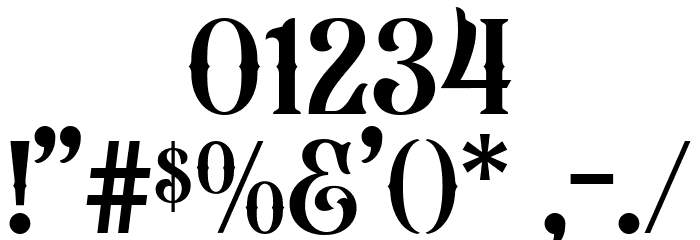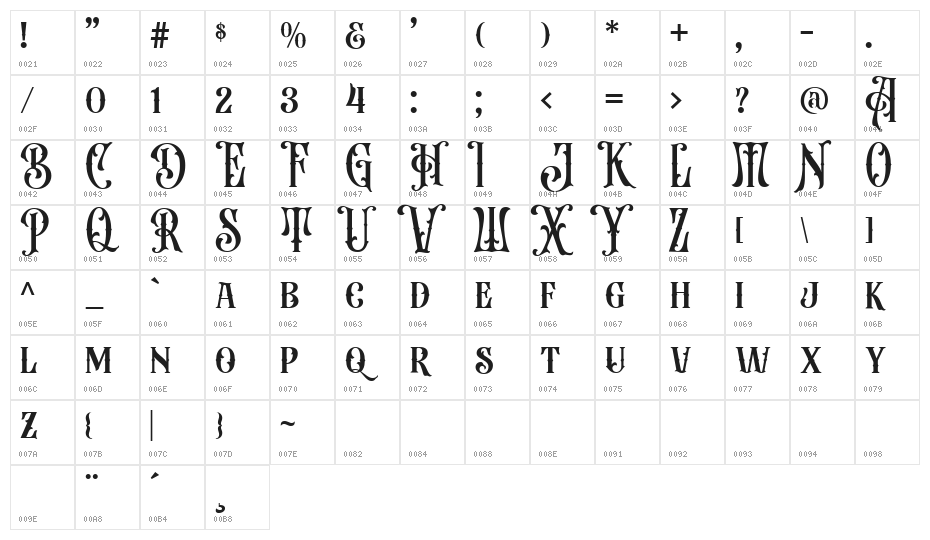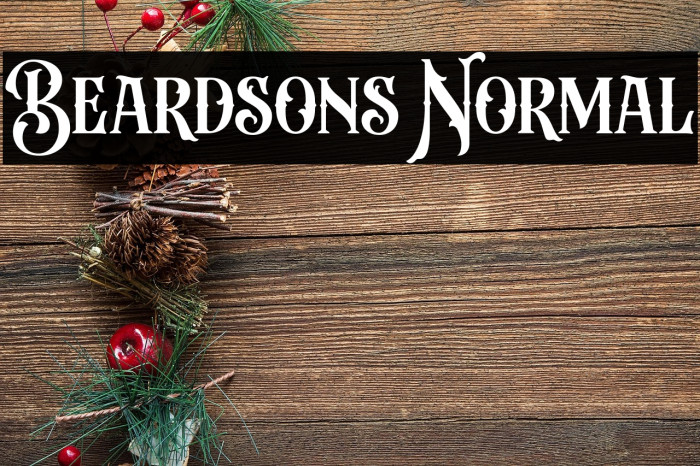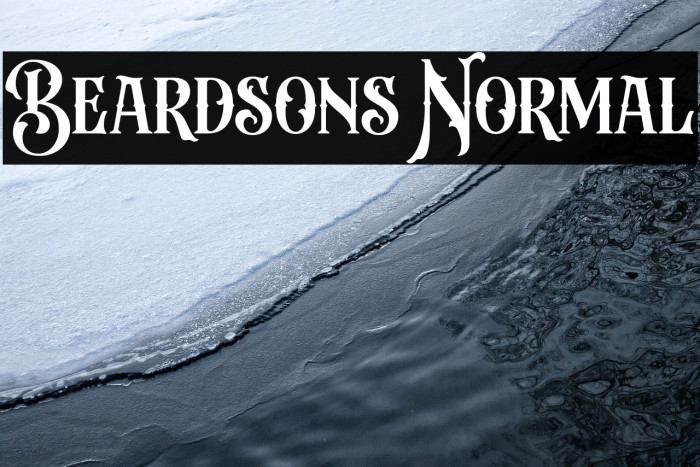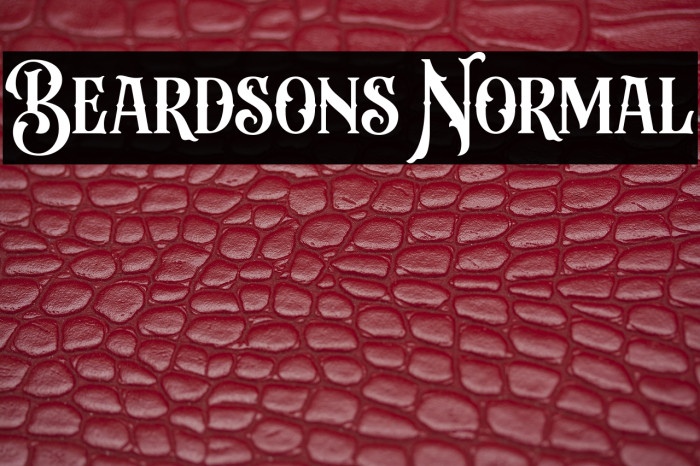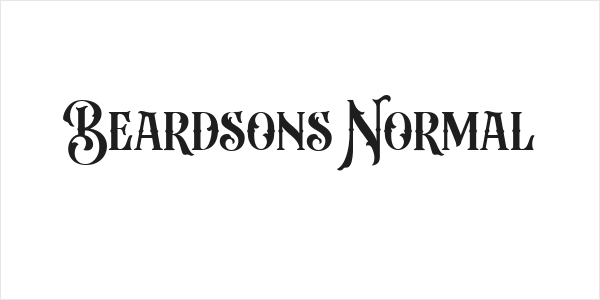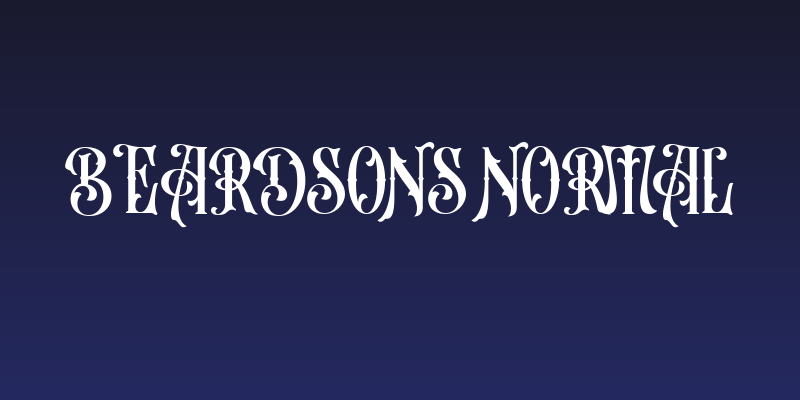
Beardsons Normal Font
Beardsons Normal Description
This font features a bold and decorative style with intricate details and flourishes, making it stand out as a statement typeface. The uppercase letters are particularly ornate, with swirling elements that add a sense of elegance and complexity. The lowercase letters maintain a more straightforward design, providing a balance to the overall aesthetic. The numbers and special characters are consistent with the boldness of the uppercase letters, ensuring a cohesive look across all characters. This font is ideal for projects that require a dramatic and eye-catching typeface, such as posters, headlines, or branding materials. Its unique style is reminiscent of vintage signage or tattoo art, offering a blend of classic and modern influences.
| Proposed Projects | Ideal for posters, branding, headlines, and any design needing a dramatic, eye-catching typeface. |